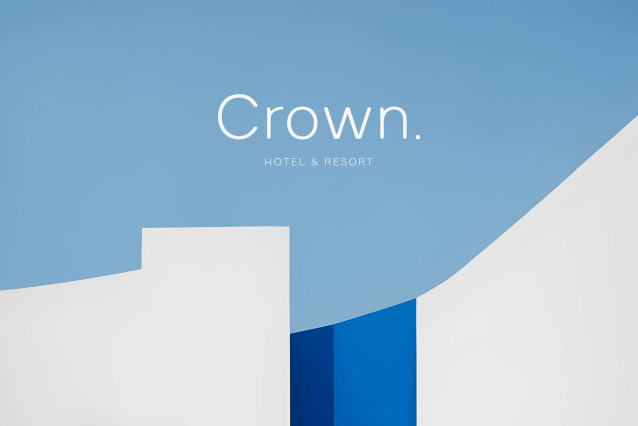
Apricity Font Family
Apricity is a partially-free font, incorporating contemporary, almost-cartoonish handwriting influences into a humanist design. It supports up to Latin Extended-A, in addition to Vietnamese. Two weights are available for free on dafont.